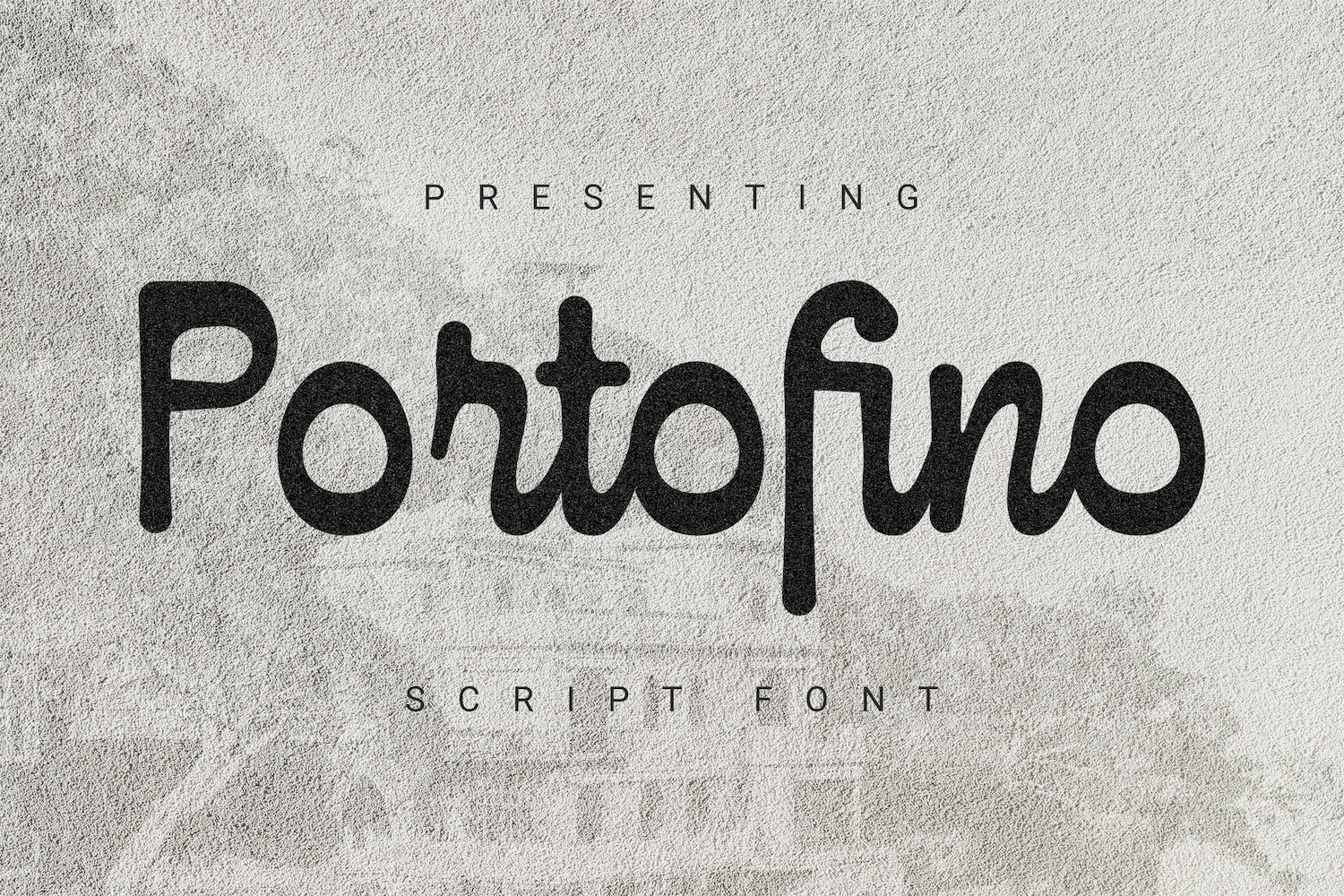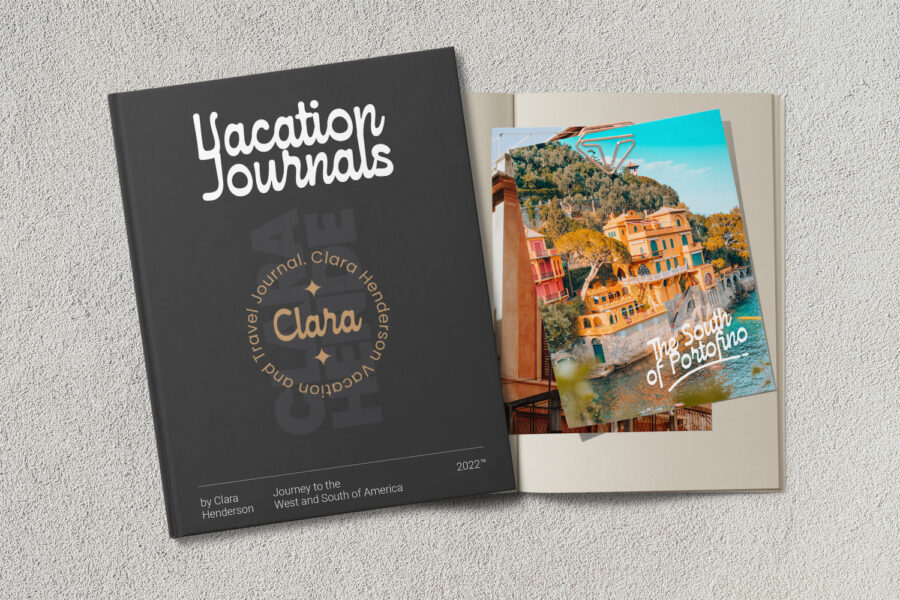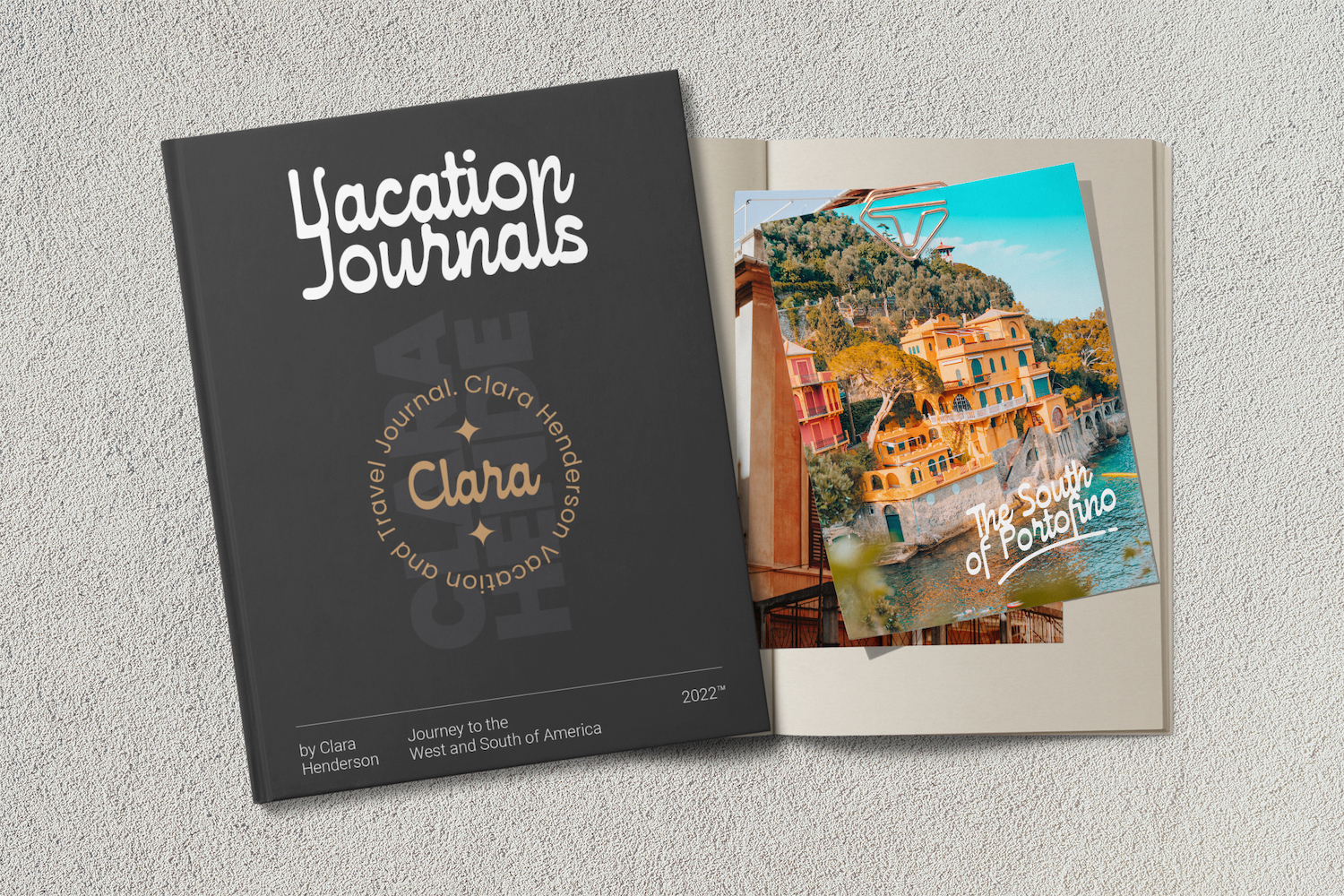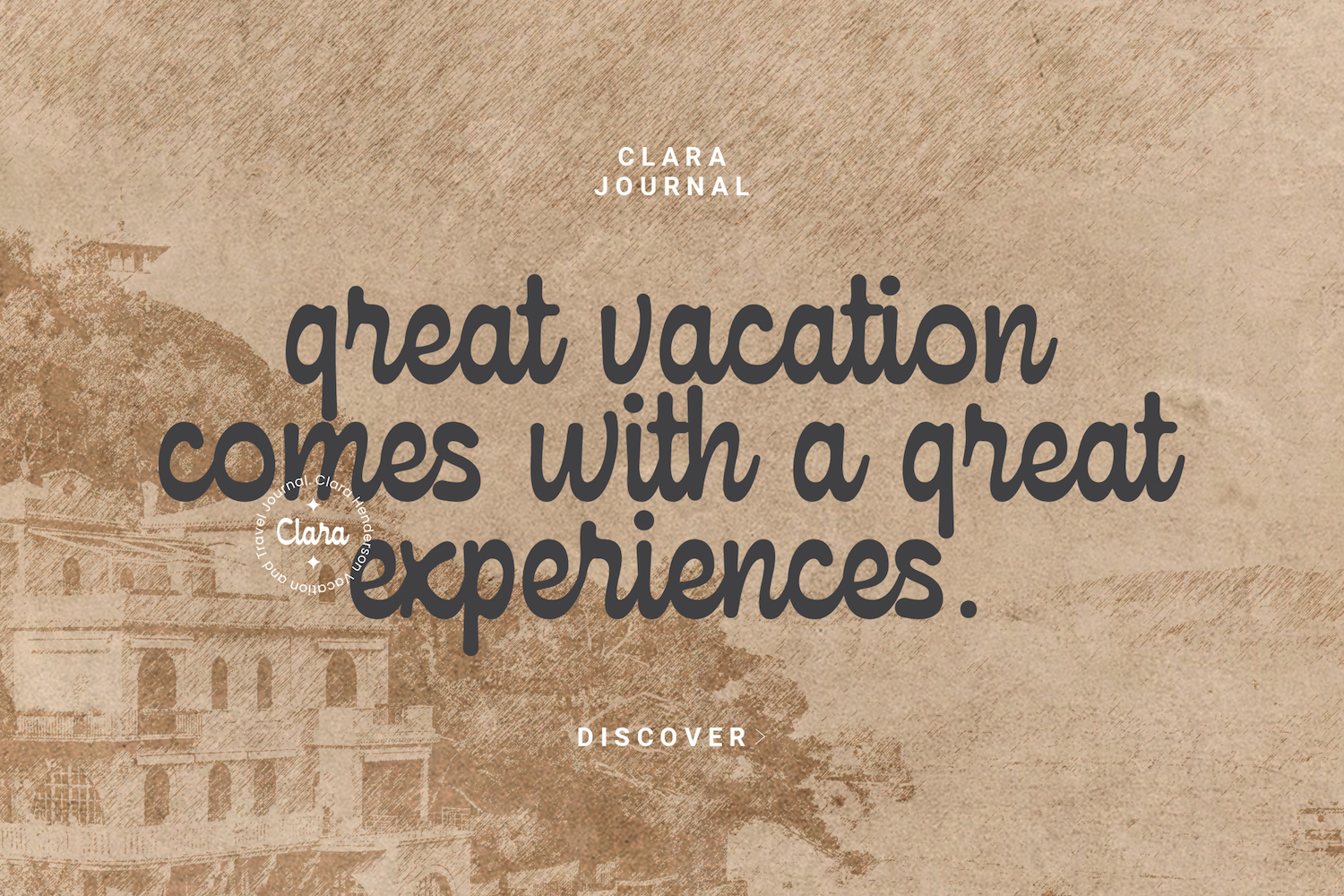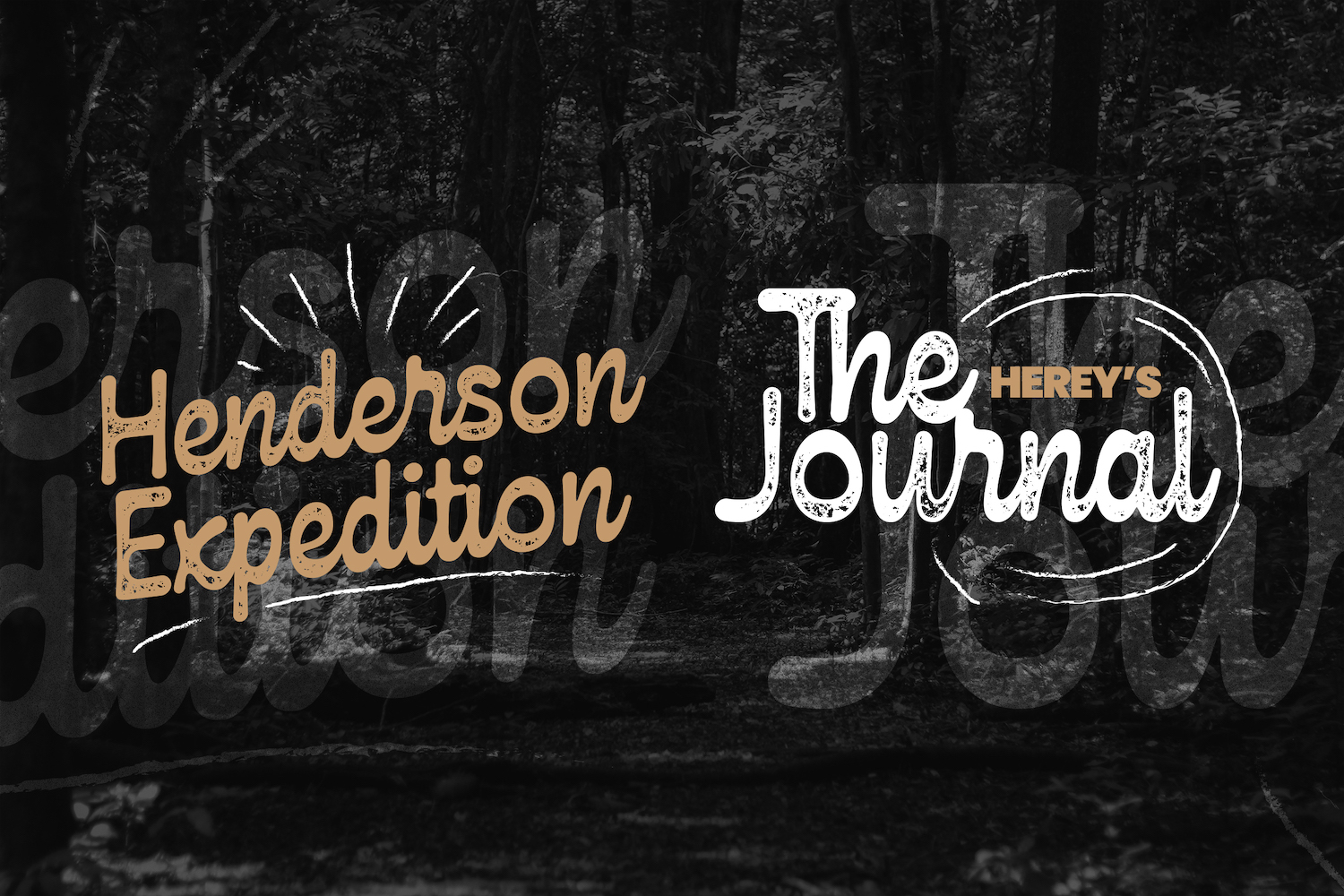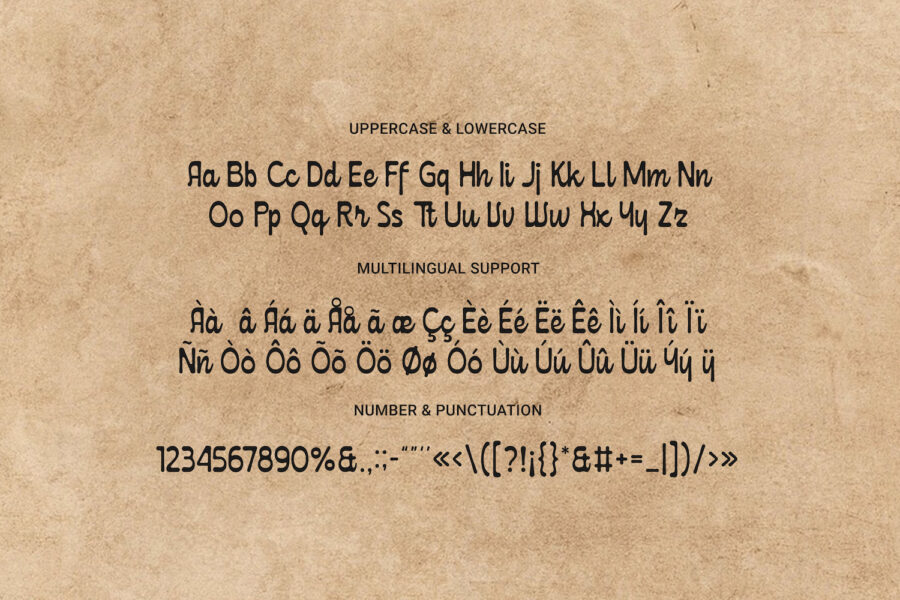
Portofino is a smooth and charming script font inspired by relaxed vacation vibes and handwritten journal styles. Its bold, rounded strokes and friendly letterforms make it ideal for creative projects like travel blogs, stationery, postcards, or casual branding. The font delivers a sense of adventure while remaining legible and warm in tone.
With multilingual support and versatile character sets, Portofino adapts seamlessly to various languages and uses. Whether used in logo design, packaging, or promotional graphics, its hand-drawn appeal adds a personal and engaging touch to your message.
Portofino